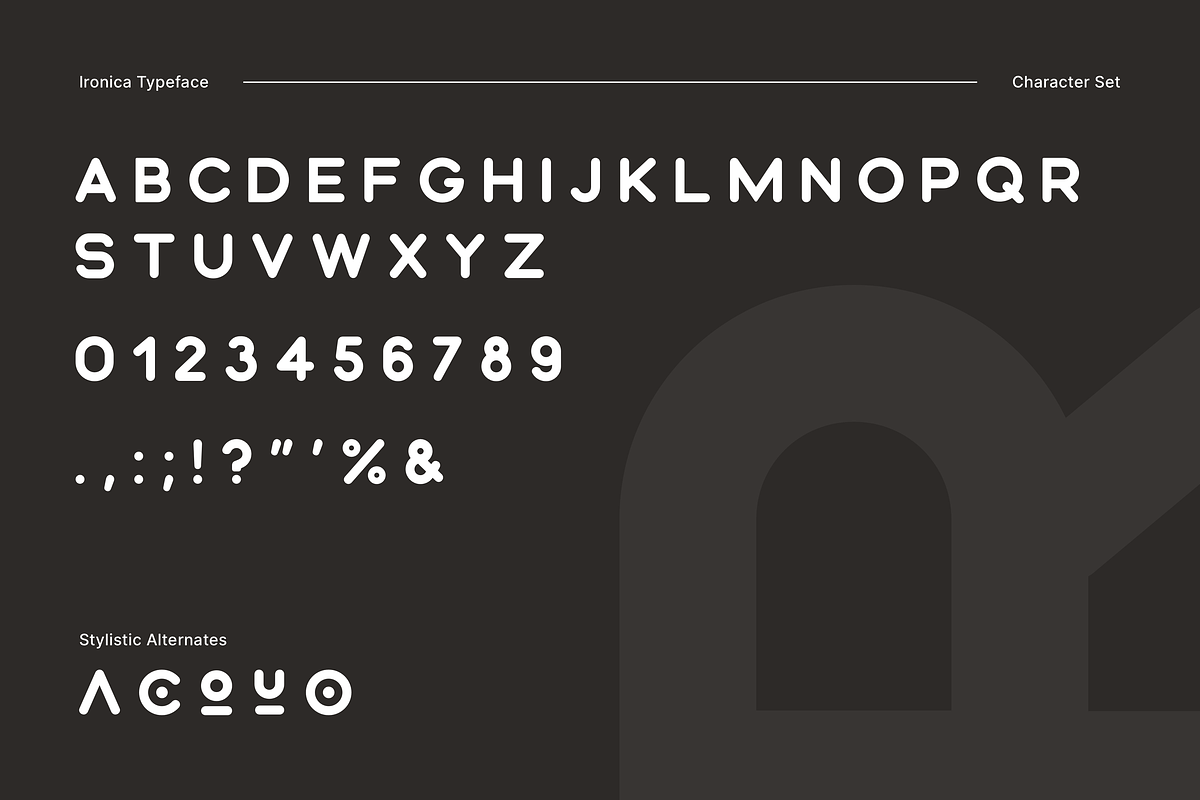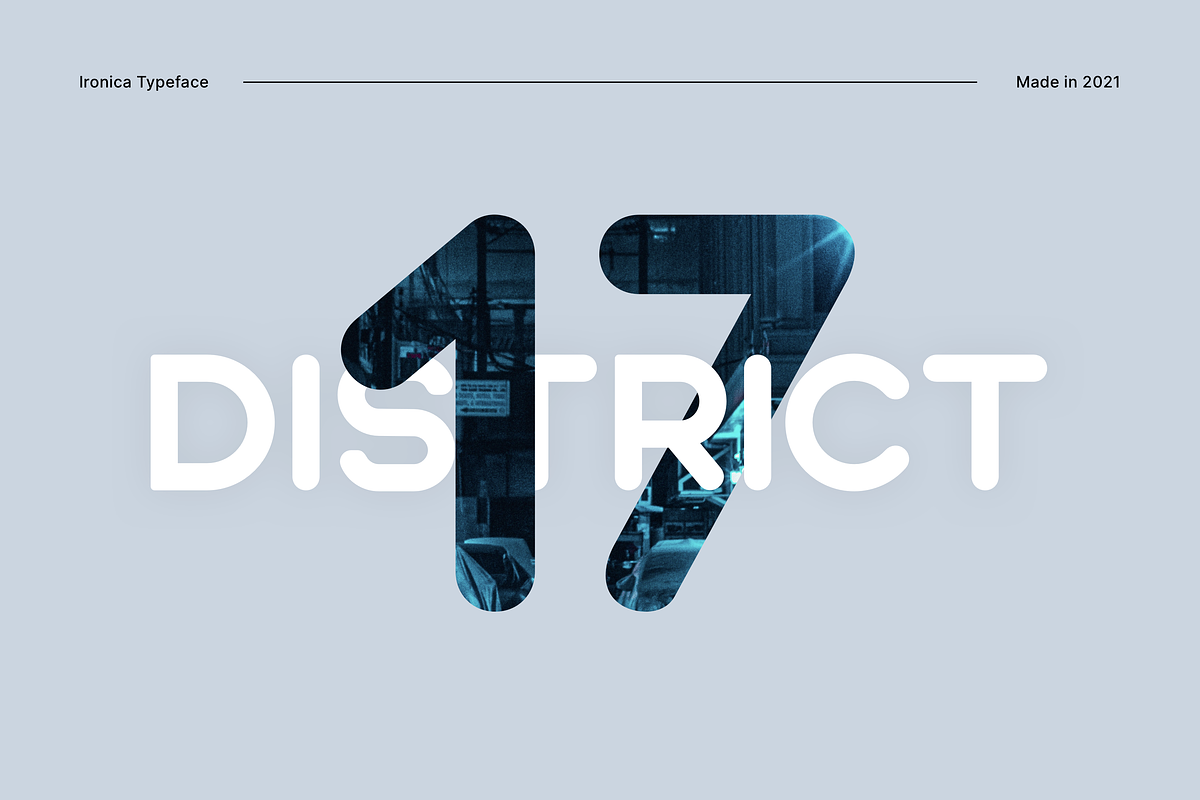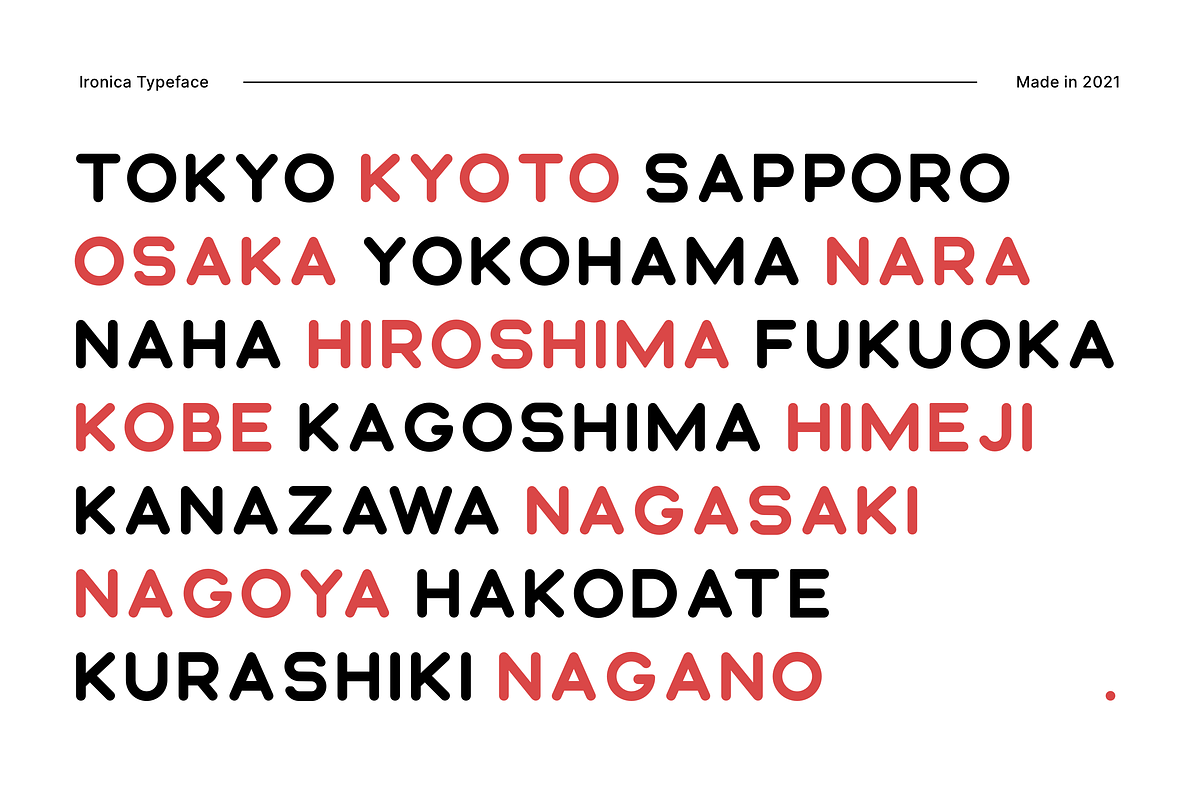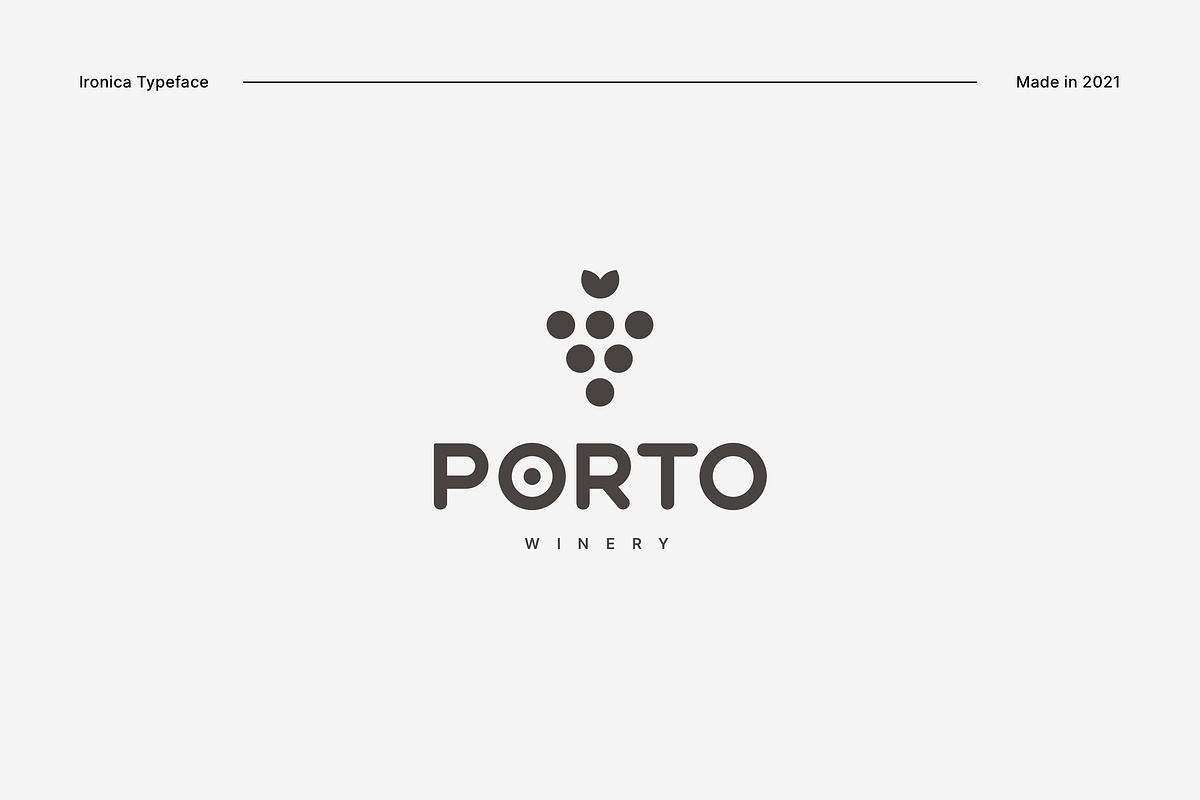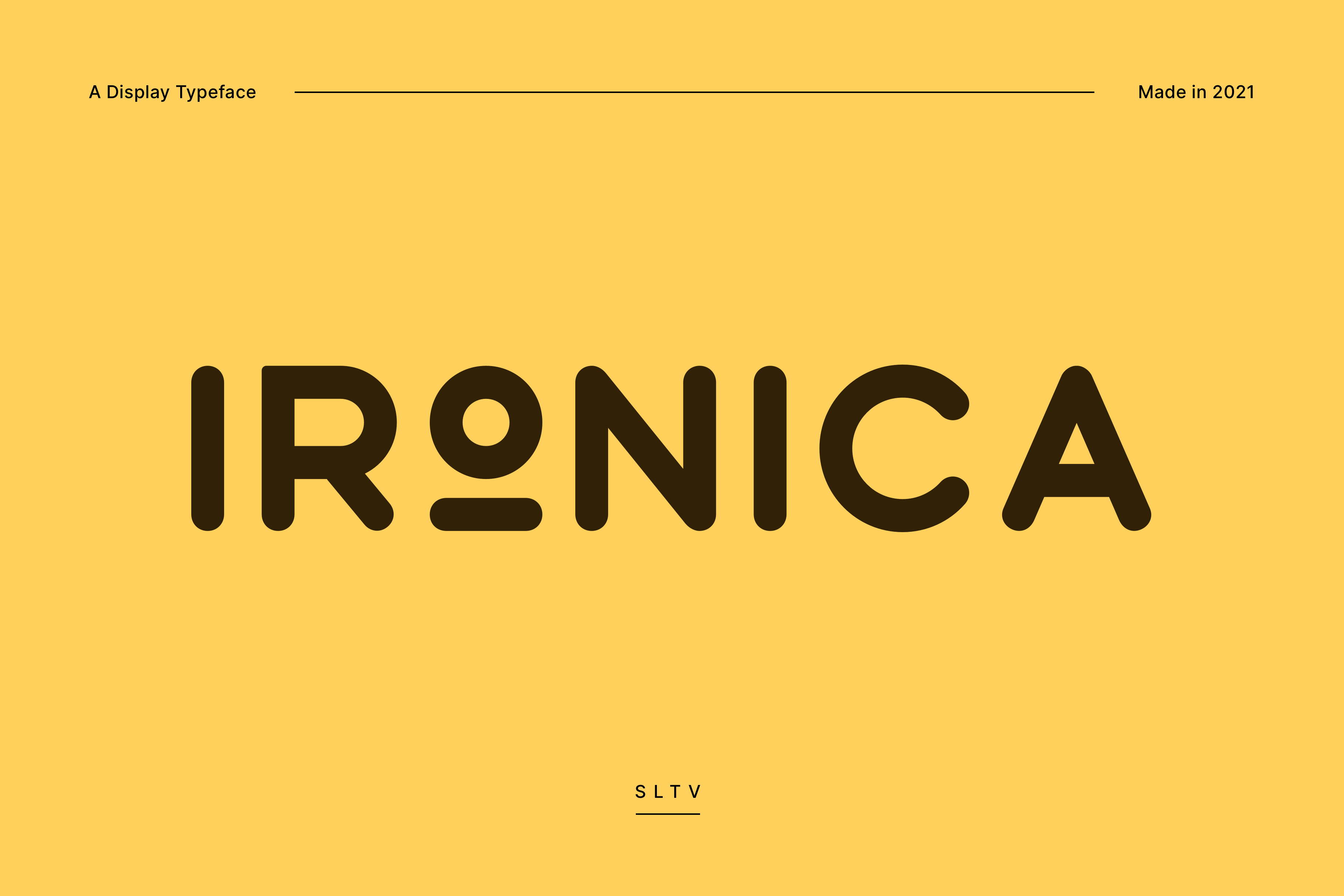
Ironica - Display & Logo Typeface
Ironica is a playful display & logo all-caps typeface. Perfectly suited for logos, posters, flyers, media posts and so much more.
- Basic Latin, numerials and limited punctuation supported (please refer to the character sheet to view all glyphs included)
- Few stylistic alternates for some characters (A, C, O, U). Please refer to the included help file to know more about Stylistic Sets.